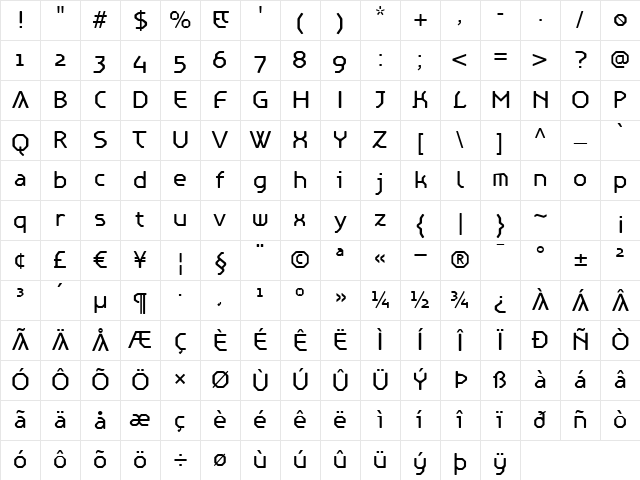
AlertRegular Regular
Design Context for AlertRegular
AlertRegular is a composed and adaptable typeface that performs quietly and consistently across a wide range of design contexts.